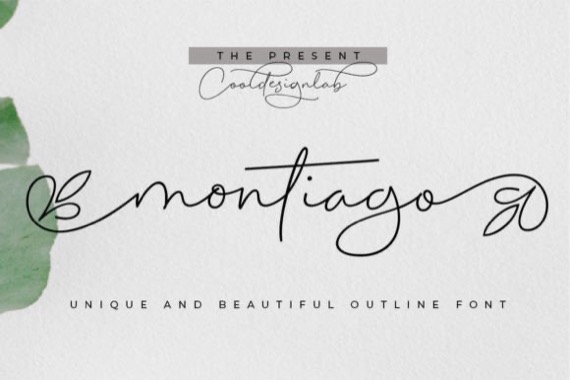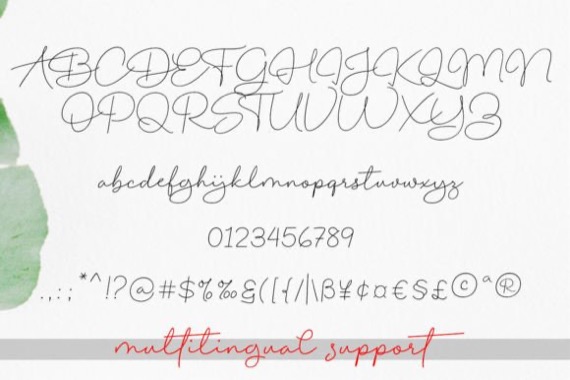
Introducing a new unique and beautiful outline display font – Montiago script. It was created and shared by Cooldesignlab. This beautiful script is for those who need elegance and style for their designs and is perfect for wedding invitations, date cards, and feminine branding.
Montiago script includes a complete set of Basic Characters, Numerals, and Lowercase Punctuation. Also contains binders and lots of styling alternatives to perfectly recreate natural calligraphy (check the preview to see them all).
Montiago Handwritten Script Font